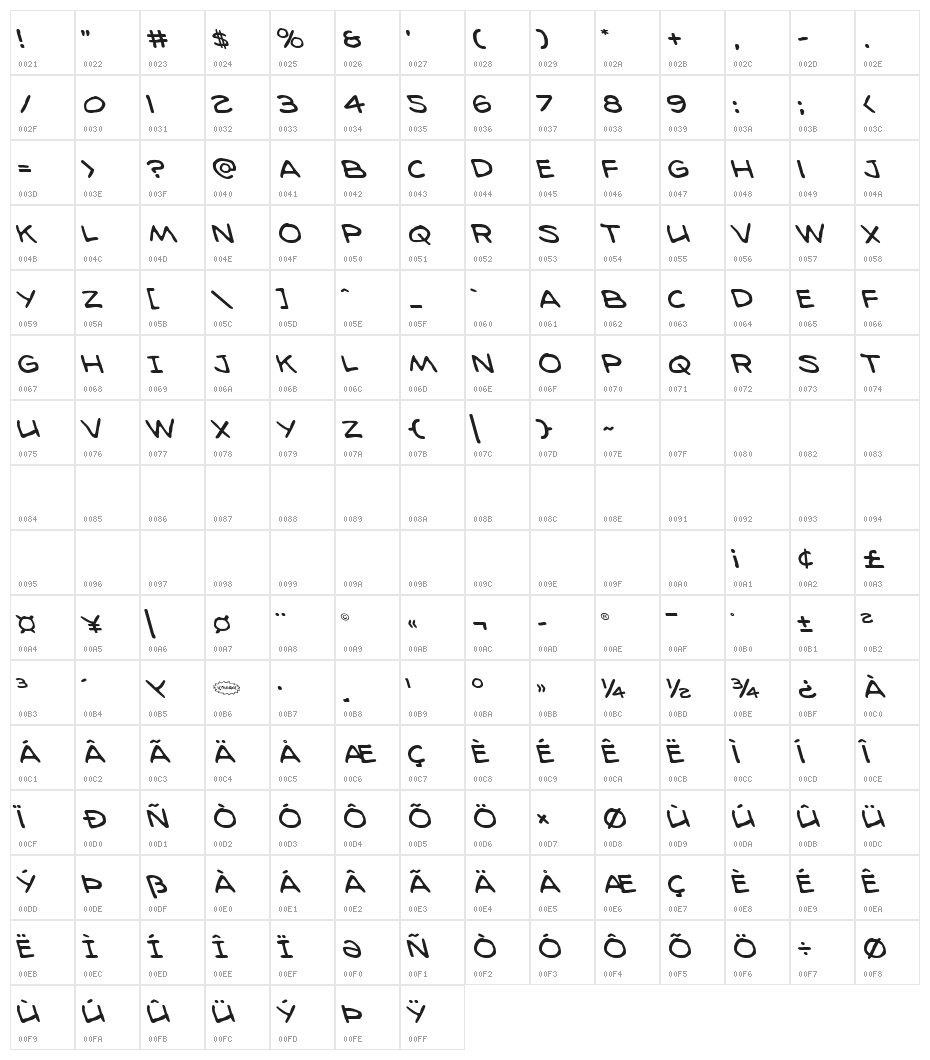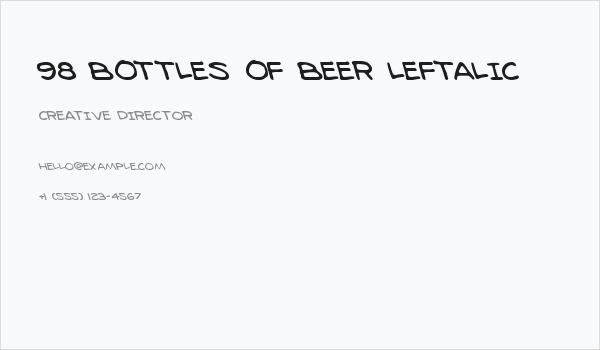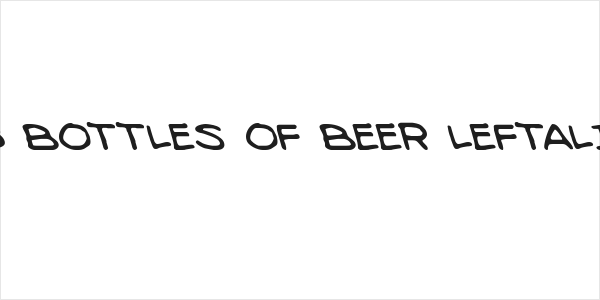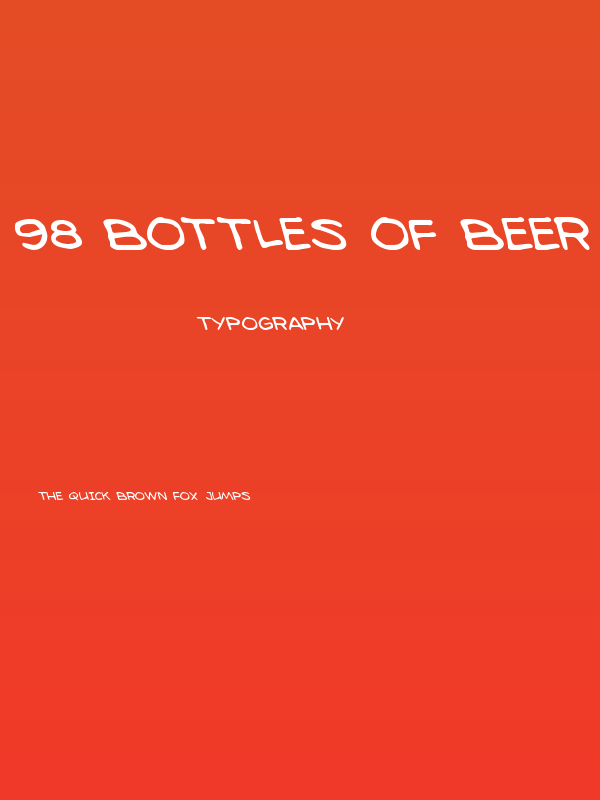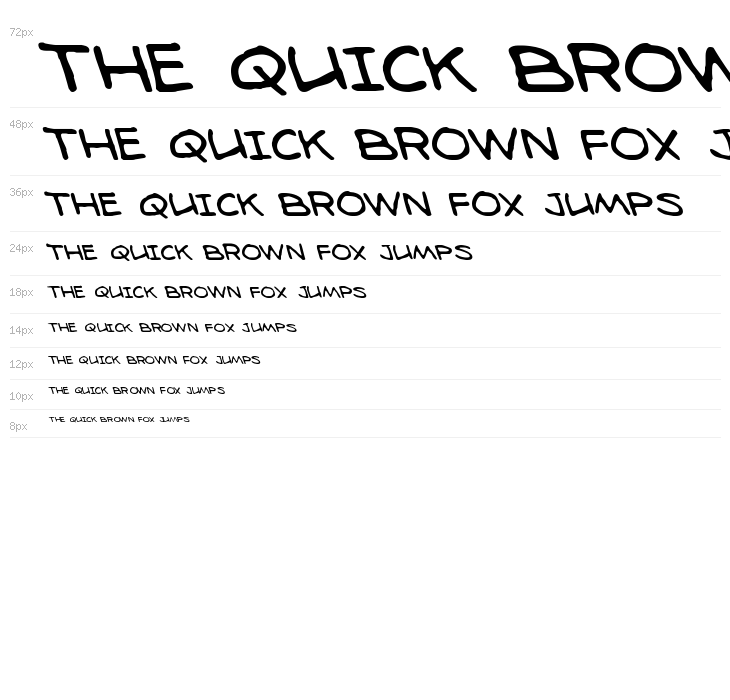
98 Bottles of Beer Leftalic Font
98 Bottles of Beer Leftalic Description
This font features a playful and casual handwritten style, characterized by its uneven strokes and slightly tilted appearance. The letters have a whimsical quality, with varying thickness that adds to its informal charm. The uppercase and lowercase letters maintain a consistent style, while the numerals and special characters complement the overall look. The font's design is reminiscent of a child's playful handwriting, making it ideal for projects that require a fun and approachable aesthetic.